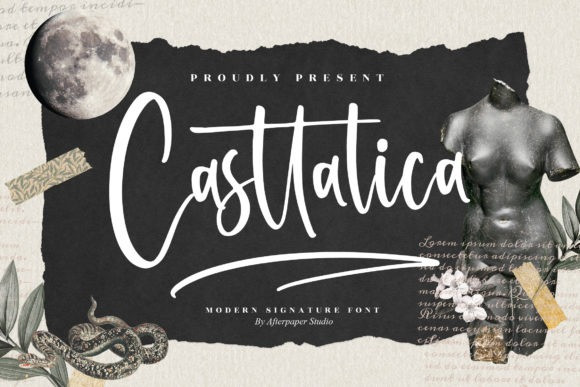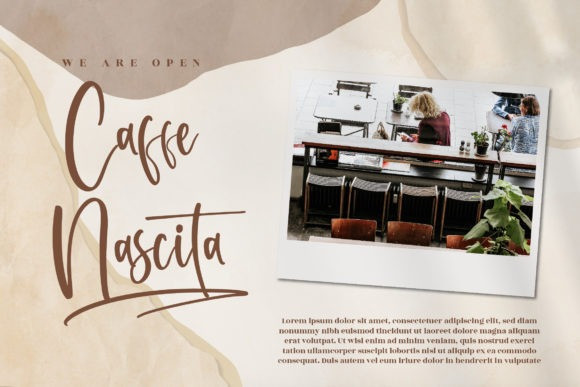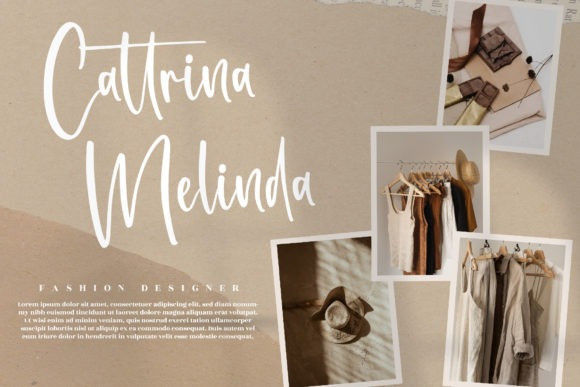
Casttalica Font
Casttalica is a distinct graceful script font. Fall for its ravishing style and use it to create gorgeous wedding invitations, beautiful stationary art, eye-catching social media posts, and much more!